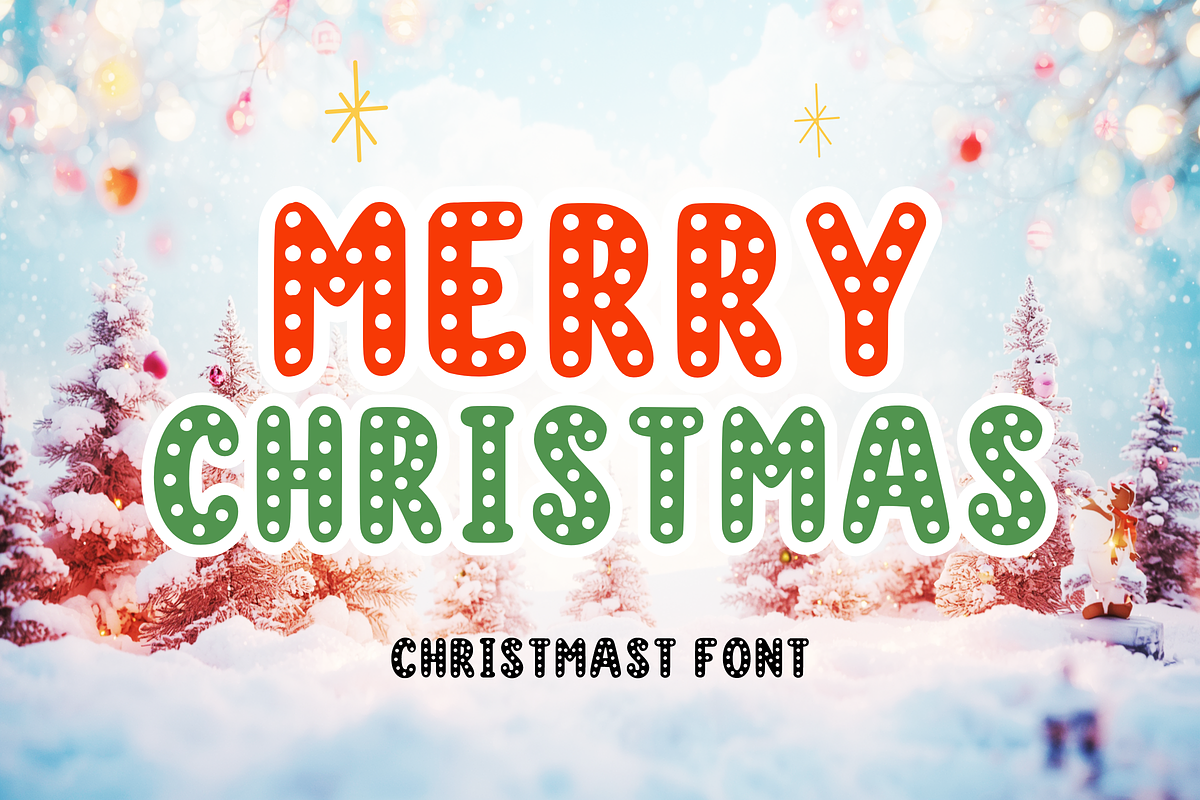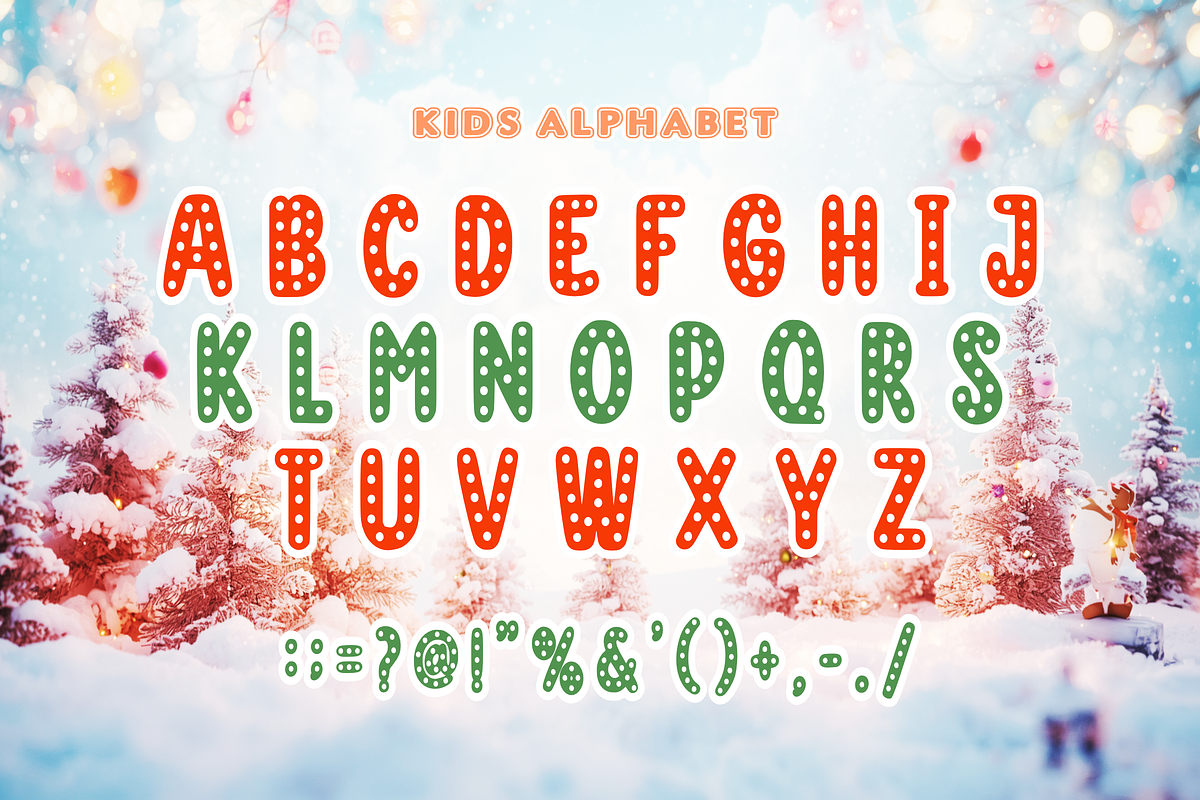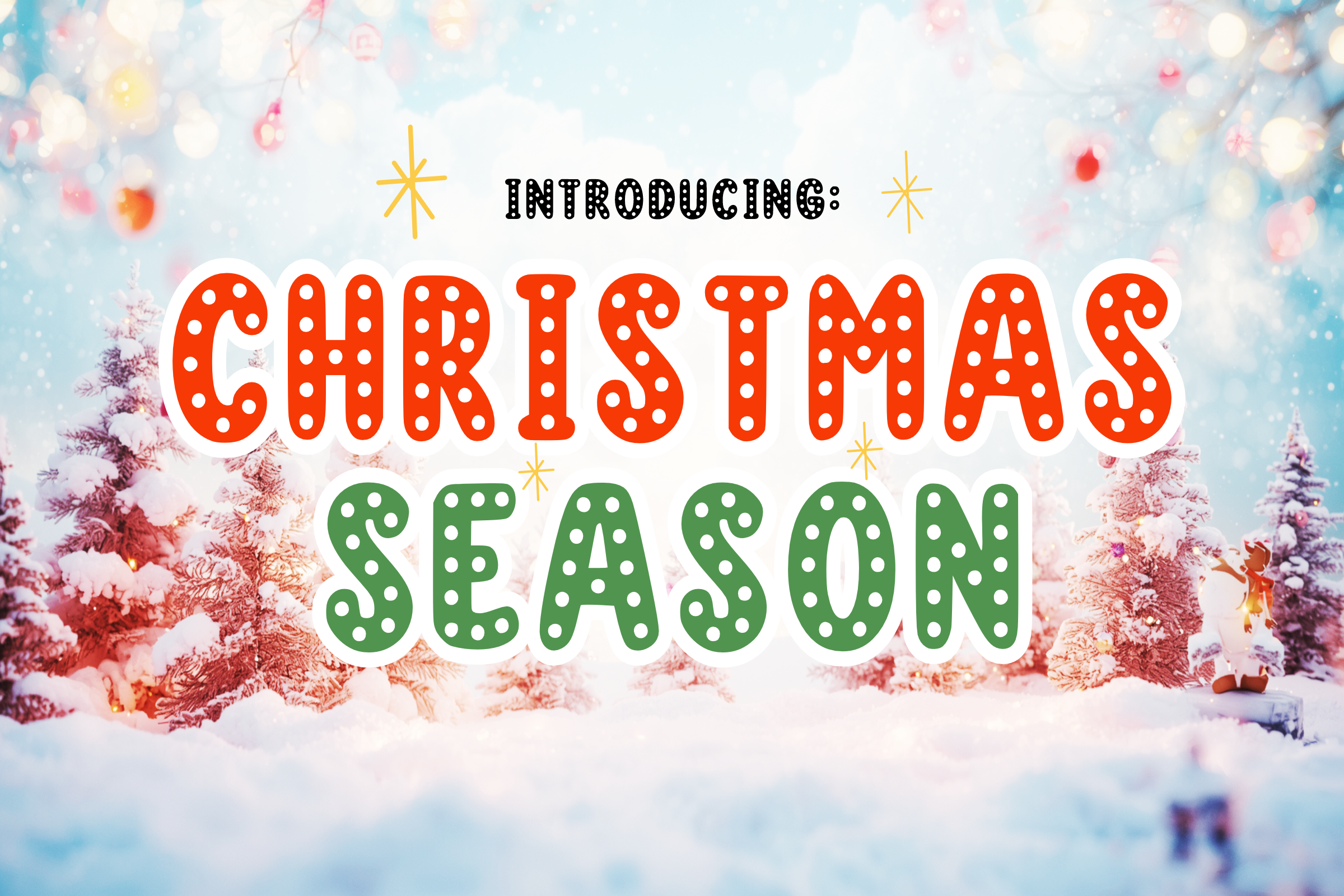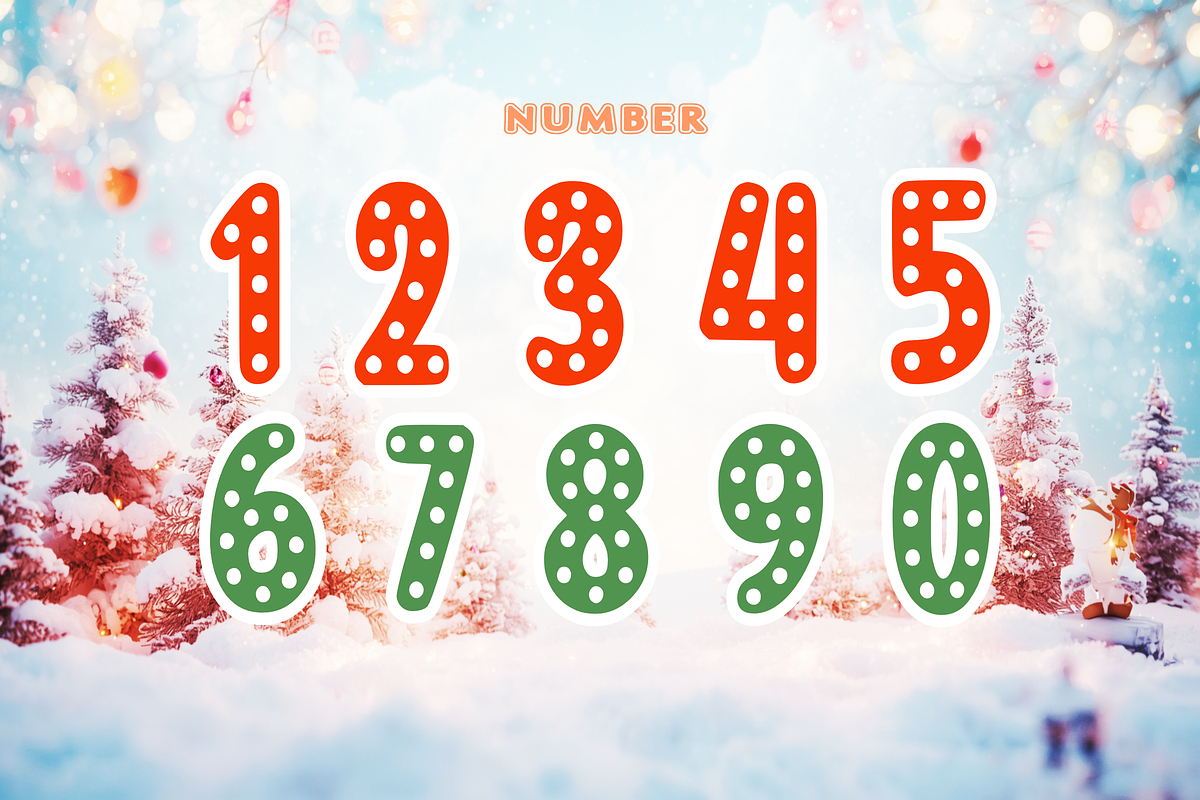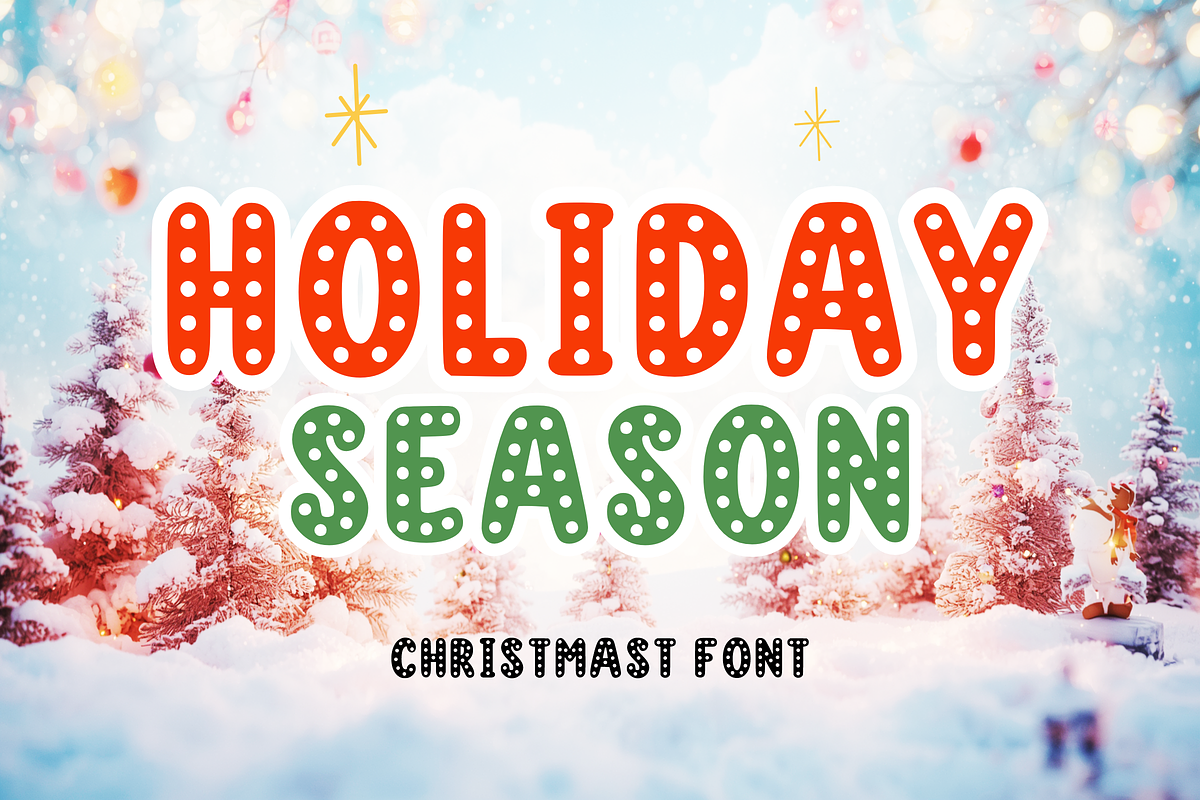
Christmas Season - Decorative Font
๐ Christmas Season โ Jolly Polka-Dot Display Font โ๏ธ Bring the magic of the holidays to your designs! ๐
Christmas Season is a festive and bubbly display font designed to capture the joy and warmth of the winter holidays. Featuring a delightful polka-dot pattern inside bold, rounded characters, this font mimics the look of falling snow against classic holiday colors. Itโs the perfect choice for creating high-impact headlines that feel merry, bright, and full of cheer.
Whether you're designing festive greeting cards, holiday party invites, or cozy seasonal merchandise, Christmas Season makes every word feel like a celebration!
โจ Product Highlights: Festive Design: Bold letters with a cute internal snow-dot pattern.
Easy to Use: Bouncy, legible, and perfectly suited for seasonal branding.
๐จ Perfect For: ๐ Christmas Greeting Cards & Gift Tags
โ๏ธ Holiday Party Invitations & Decor
๐ Winter Apparel & T-shirt Designs
๐ฑ Seasonal Social Media Content & Thumbnails
๐ Bakery, Toy Store, & Gift Shop Branding
๐๏ธ Cricut & DIY Holiday Craft Projects